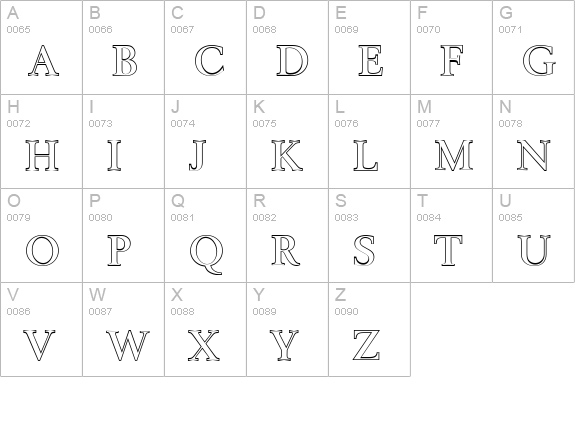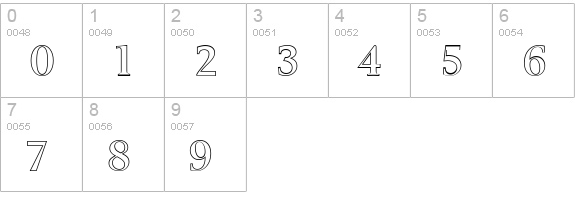
BelfastOutline-Medium-Regular Font Details
BelfastOutline-Medium-Regular is a balanced, medium-weight variant in the BelfastOutline typeface family \xE2\x80\x94 well suited to sub-headlines, navigation, and balanced editorial work.
BelfastOutline-Medium-Regular is a modern and stylish typeface that strikes the perfect balance between boldness and sophistication. Its sleek outlines and clean lines make it a versatile choice for a wide range of design projects, from branding to editorial design. This font exudes a contemporary flair while maintaining a sense of timeless elegance. What's even better is that BelfastOutline-Medium-Regular is available for free download at FontsMarket.com! Yes, you read that right - you can get your hands on this stunning font completely free of charge. Whether you're a seasoned designer looking to refresh your font collection or a beginner eager to experiment with different styles, BelfastOutline-Medium-Regular is the perfect choice. Don't miss out on this fantastic opportunity to enhance your creative projects with this exceptional typeface. Download it now and let your designs shine with BelfastOutline-Medium-Regular!